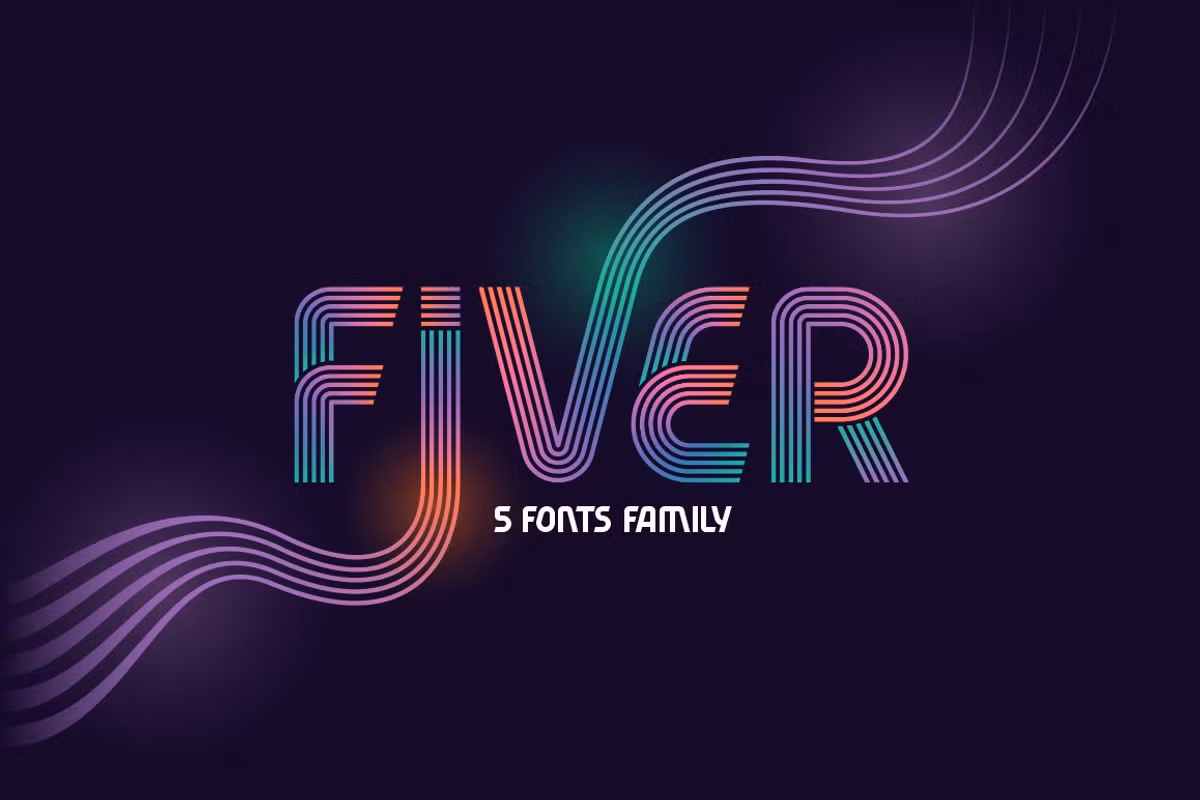
Fiver 5 Fonts Family Free Download is a versatile and modern font family that offers five unique styles to cater to different design needs. Featuring clean lines, strong structure, and a contemporary aesthetic, this family is perfect for branding, websites, editorial designs, product packaging, and any creative project that demands clarity and elegance.
With its combination of serif and sans-serif variations, Fiver 5 Fonts Family provides flexibility for both headlines and body text, giving you the freedom to design across various mediums. Whether you need a sophisticated, professional look or a friendly, approachable vibe, this family has you covered.